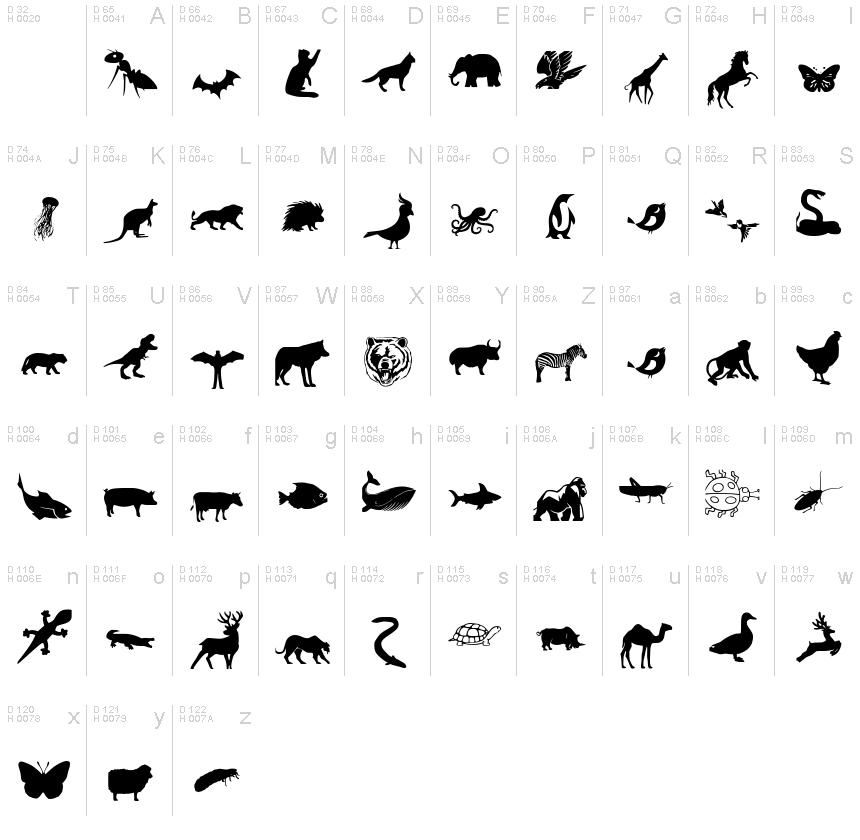
Animal Y Fobt Regular
Animal Y Fobt, a creation by Yeasin Kaji, brings the animal kingdom to the world of typography through its imaginative array of dingbat characters. Each glyph is a playful and artistically rendered creature, showcasing a distinct silhouette that captures the essence of wildlife with flair and creativity. The font dances between whimsy and sophistication, making it an enchanting choice for projects that aim to evoke a sense of natural wonder or require an element of charming eccentricity.
Ideal for thematic designs in children's literature, environmental awareness campaigns, or branding that requires an organic touch, Animal Y Fobt's menagerie offers endless possibilities for visual storytelling. It invites designers to explore a jungle of ideas where lions roar and butterflies flutter off the page, creating an immersive experience that can transform the mundane into something magical.